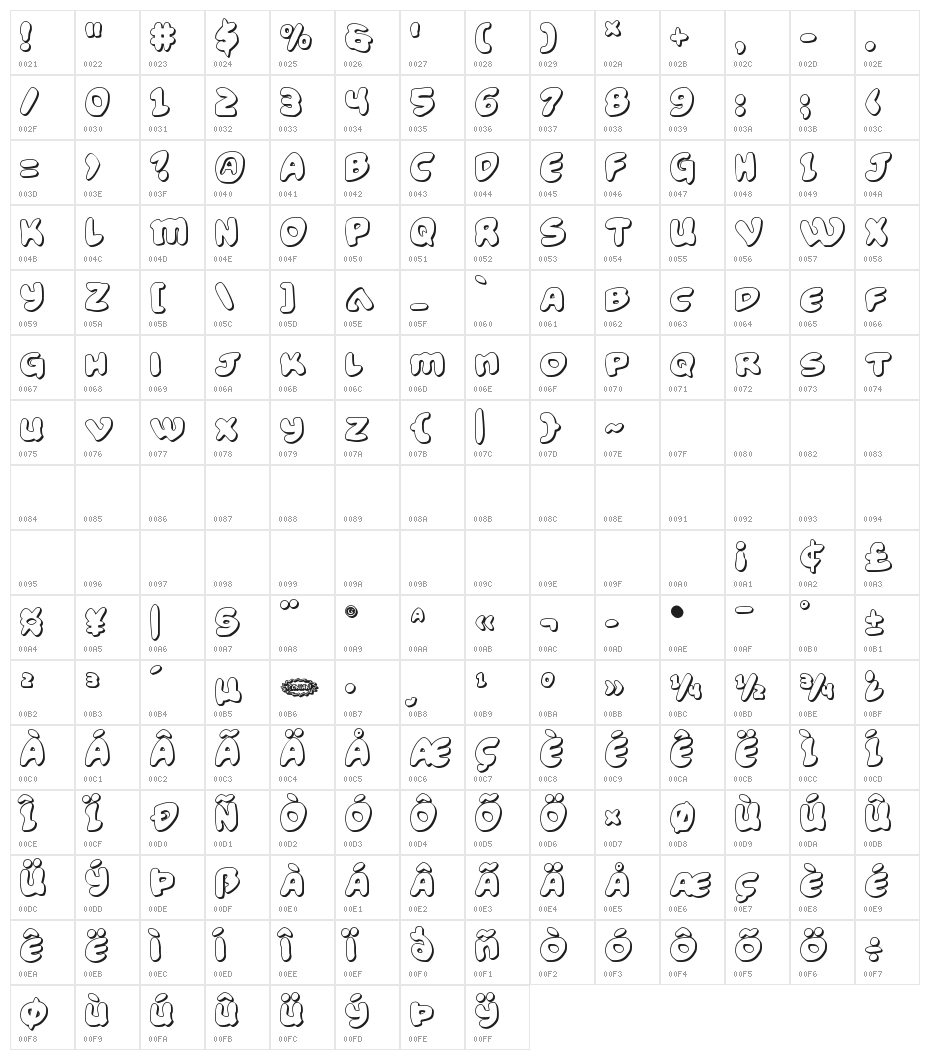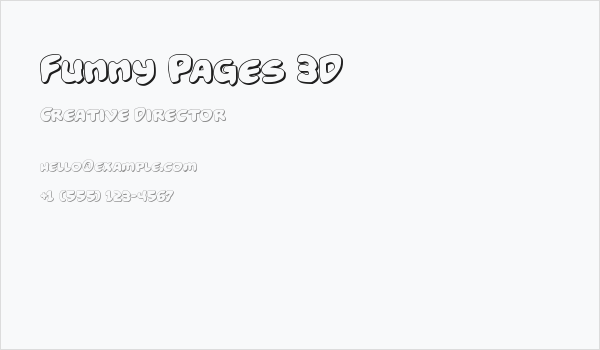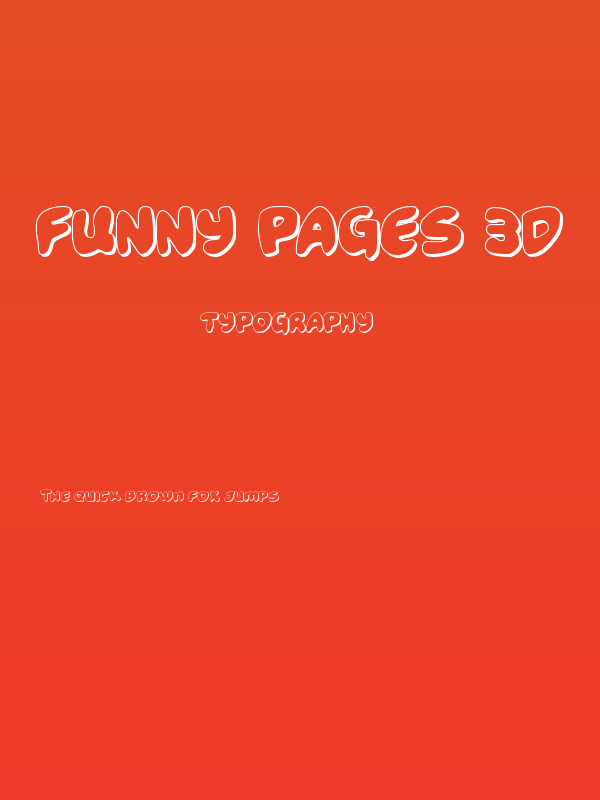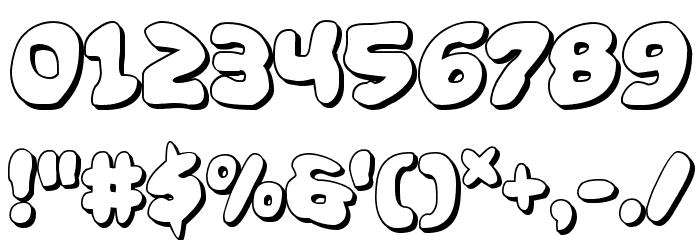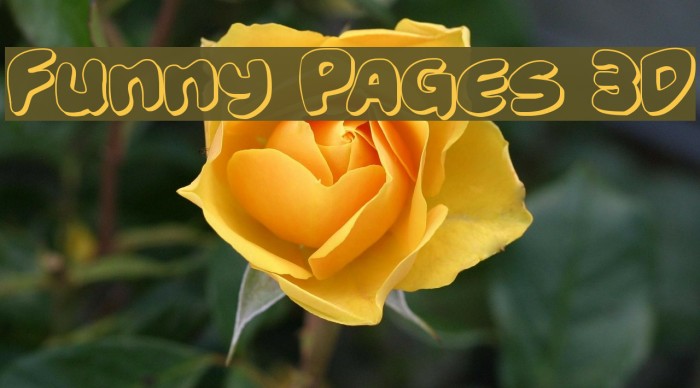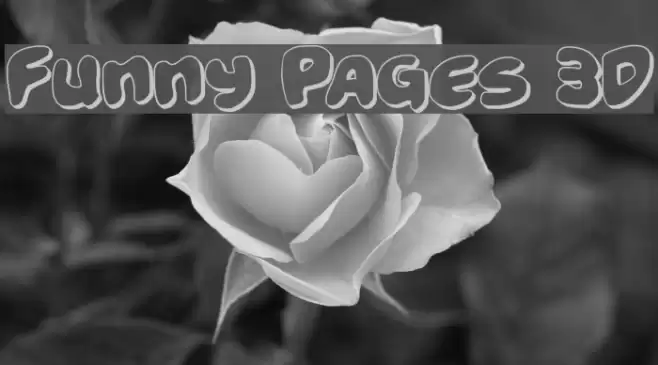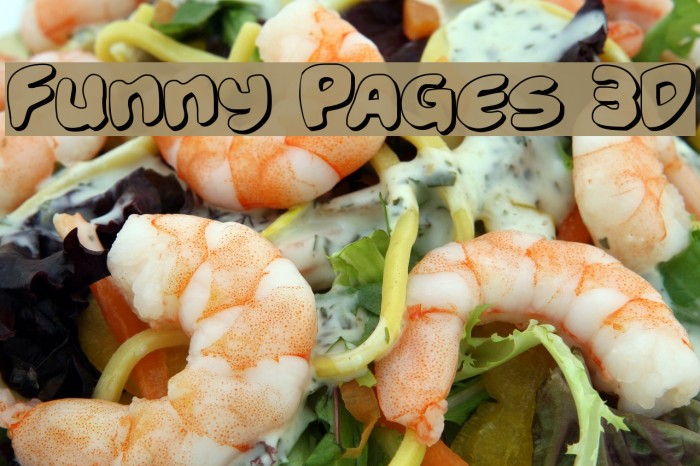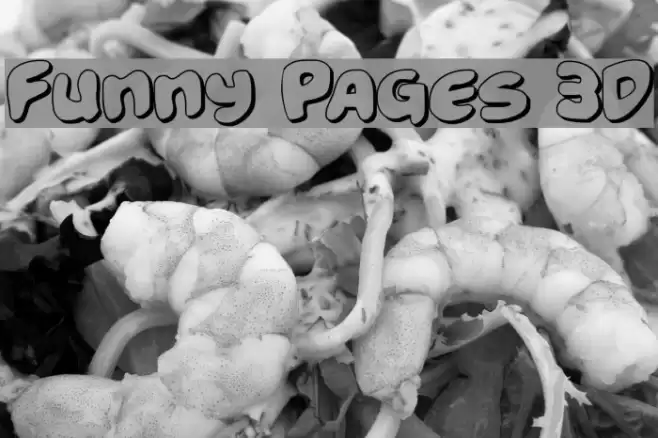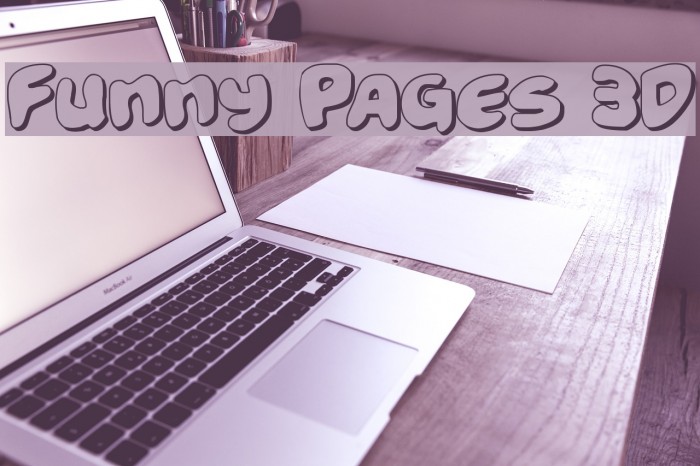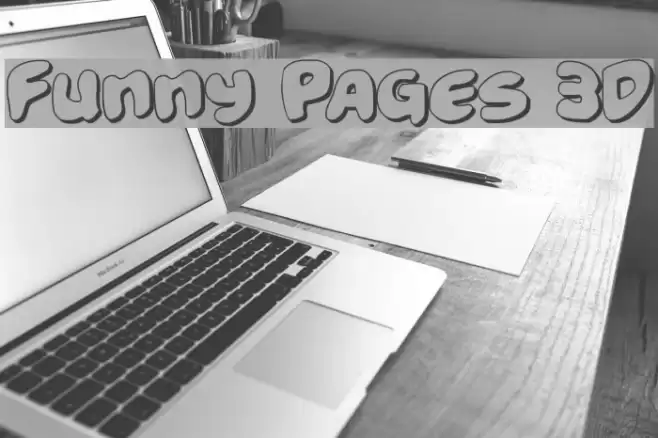
Funny Pages 3D Font
Funny Pages 3D Description
This playful and bold font features a three-dimensional, cartoonish style with thick, rounded edges that give it a bubbly appearance. The letters are slightly tilted, adding a dynamic and fun element to the overall design. The characters are well-spaced, ensuring readability while maintaining a whimsical aesthetic. The numbers and special characters follow the same design principles, making the font versatile for various creative applications. Its unique style is reminiscent of comic book lettering, making it ideal for projects that require a lighthearted and engaging visual impact.
| Overall Style | Playful, Cartoonish, Fun |
| Proposed Projects | Ideal for comic books, children's books, playful branding, posters, and any project needing a fun and engaging typeface. |